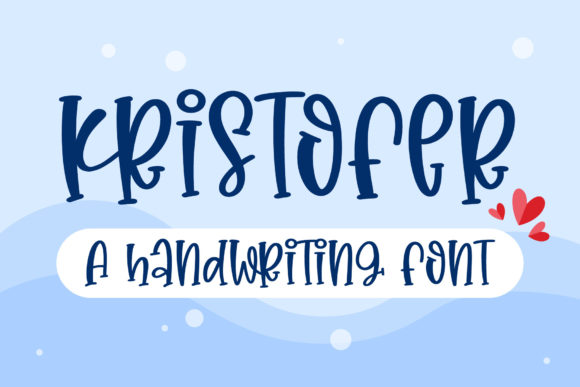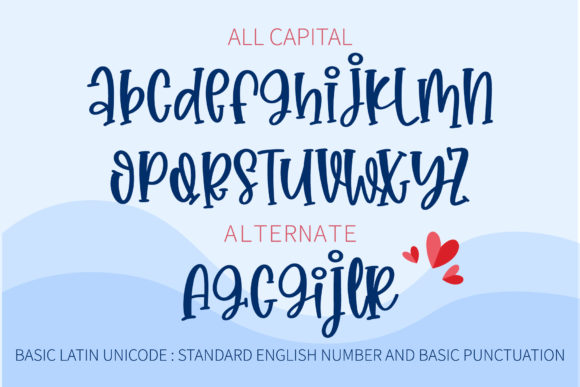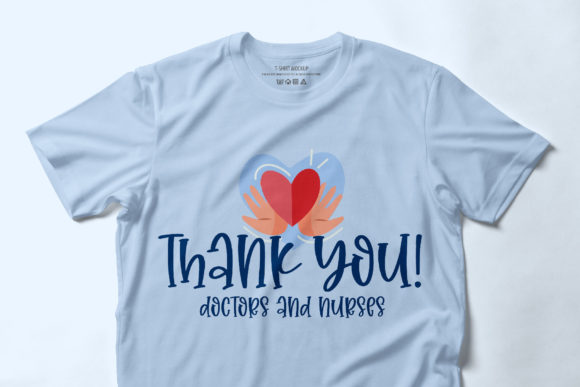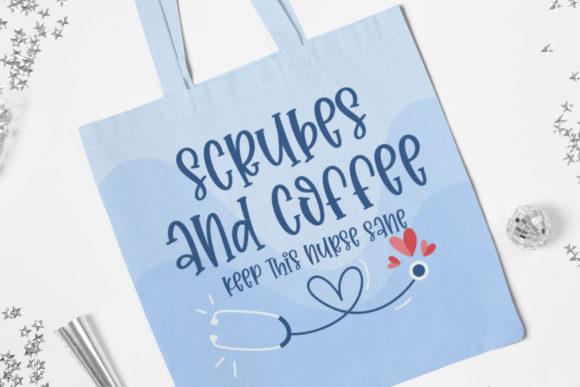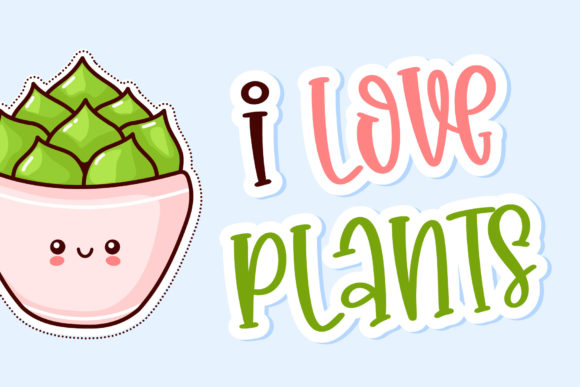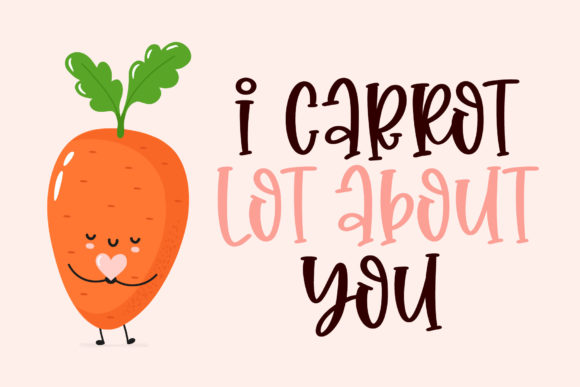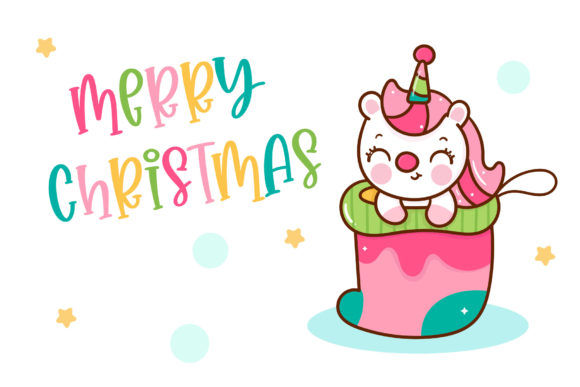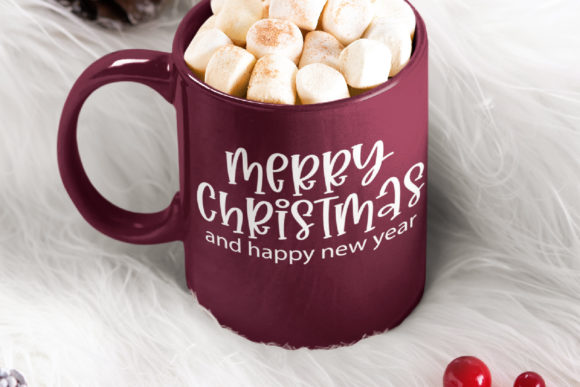
Kristofer Font
About Kristofer Font
Kristofer is a fun, quirky and informal handwritten font. Its natural and unique style makes it incredibly fitting to a large pool of designs. The only limit is your imagination!